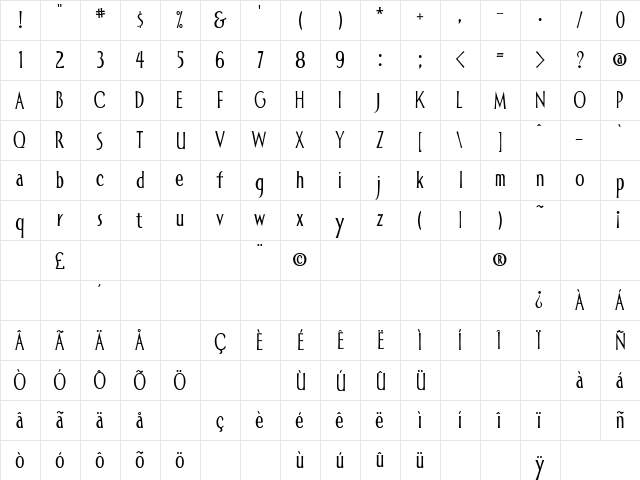
Allise Regular Font Preview
Allise Regular
Design Context for Allise Typeface
Allise offers clean, dependable letterforms without strong stylistic allegiance, making it a practical choice for designers who need flexibility.
Pro Tip: Pair Allise with a font of contrasting weight or personality to build a more expressive typographic hierarchy.